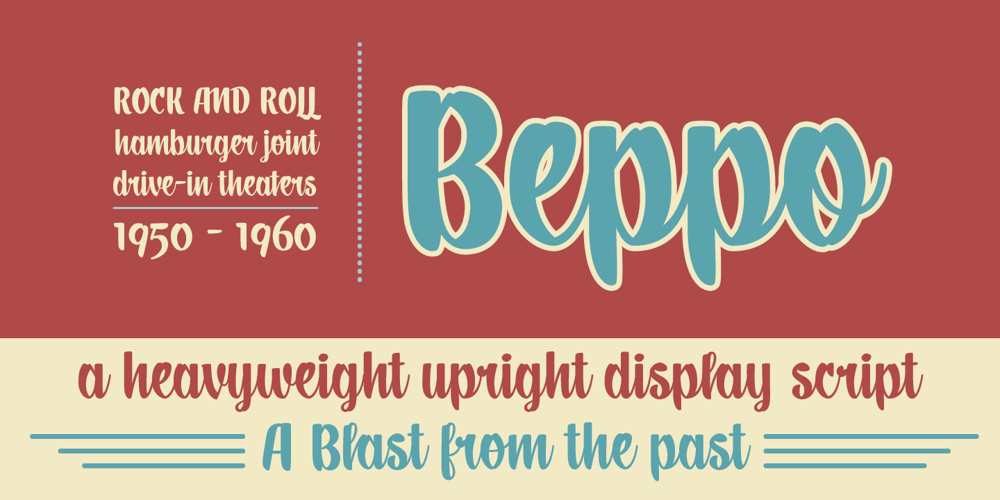
Beppo Brush
Beppo Brush Font Family was designed by Nils Lindstrom and published by Lindstrom Design. Beppo Brush contains 1 styles and family package options. Beppo is a bold upright casual script with a condensed character width and a full palette of ordindals, small caps, and diacritics. Beppo flavors things up with old style figures and quirky, contextual alternate connections. Legible, compact and smothered in typographic cheese – it just smells good!